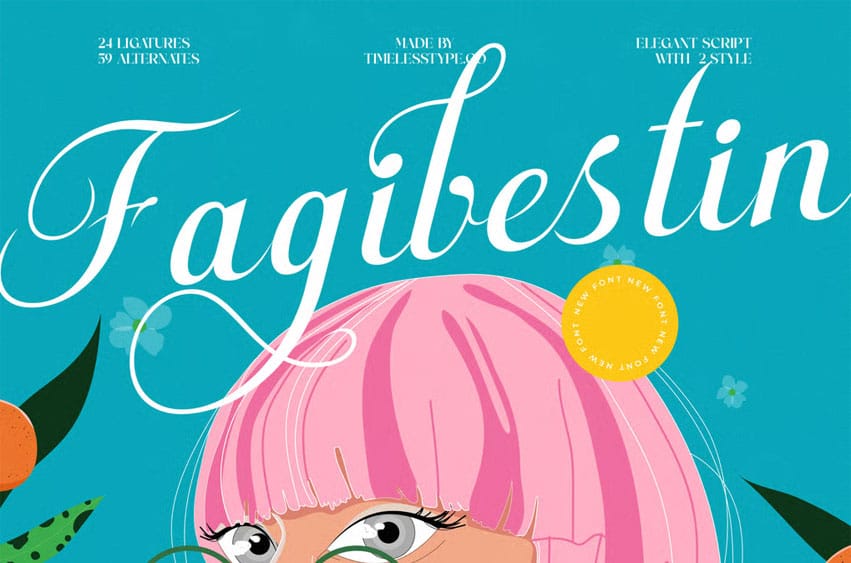
Fagibestin Font
Fagibestin Font is an elegant modern script font designed with graceful high-contrast curves, sweeping ascenders, and expressive letterforms that add a stylish, editorial flair to any project. With 24 refined ligatures and 59 artistic alternates, this typeface delivers a chic handwritten sophistication perfect for beauty branding, fashion labels, social media aesthetics, product packaging, boutique logos, invitations, and high-end creative work.
Its smooth, fluid strokes and luxurious visual rhythm bring a polished personality that feels both contemporary and timeless, making Fagibestin the go-to script for designers seeking elegance with a bold sense of character.